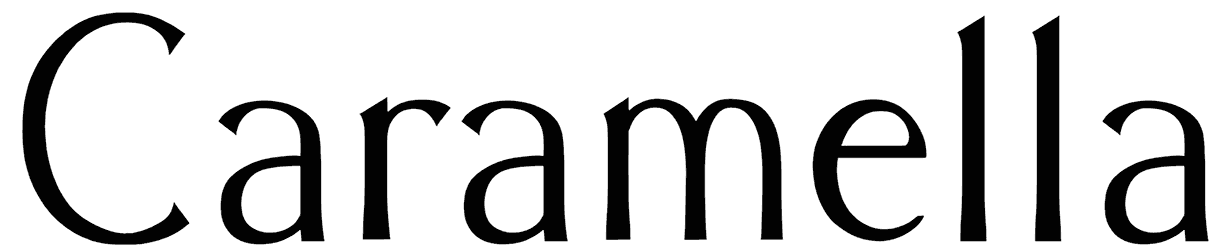
Caramella Font
Designed byRomulo Castilho de Freitas
Give off a generous and animated aura in your presentation through this serif font and bring a modern and fresh feeling to your audience. Caramella comes simply to fit well into your innovative writing designs, whether digital applications, magazines, headlines, posters, or even main text to give them a sweet, nifty impact. Need more? RB is always at your service.
Caramella is the result of a typographical project in the university Senac – Sao Paulo – Brazil.